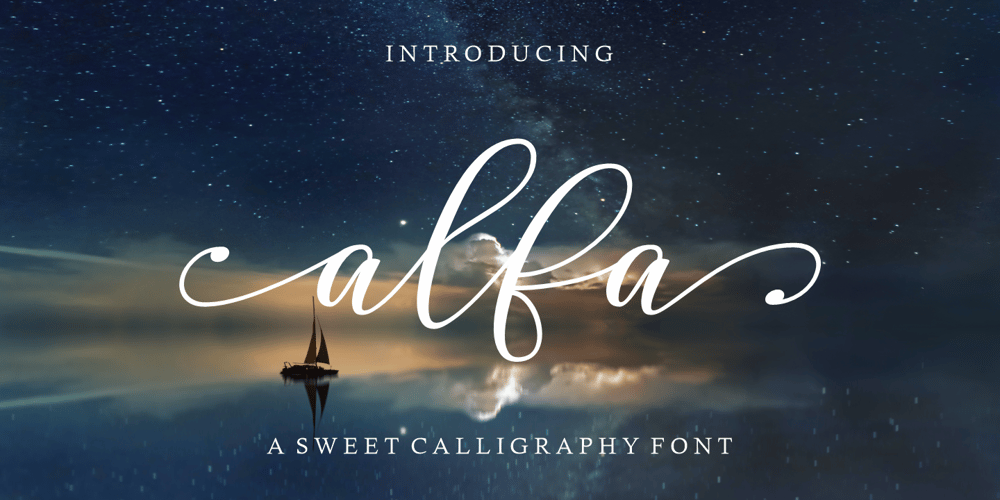
Alfa Script
Alfa Script font
Alfa Script Font Family was designed by Afri Giani and published by Gian Studio. Alfa Script contains 1 styles and family package options. Alfa Script is a modern calligraphy font with the current handwriting style, this font is perfect for branding, wedding invites, magazines, mugs, business cards, quotes, posters, and more, you can try first if you want to buy this font.To use a variety of flying machines, you need a program that supports OpenType features such as Adobe Photoshop Cs / Adobe Photoshop CC, Adobe Illustrator CS / Adobe Illustrator CC, Adobe Indesign and Corel Draw and many more programs that support OpenType.If you do not have a program that supports OpenType, you can access all the alternate glyphs using Font Book (Mac) or Character Map (Windows)Thanks and happy designing :-)Thank You for purchase!Designers: Afri GianiPublisher: Gian Studio